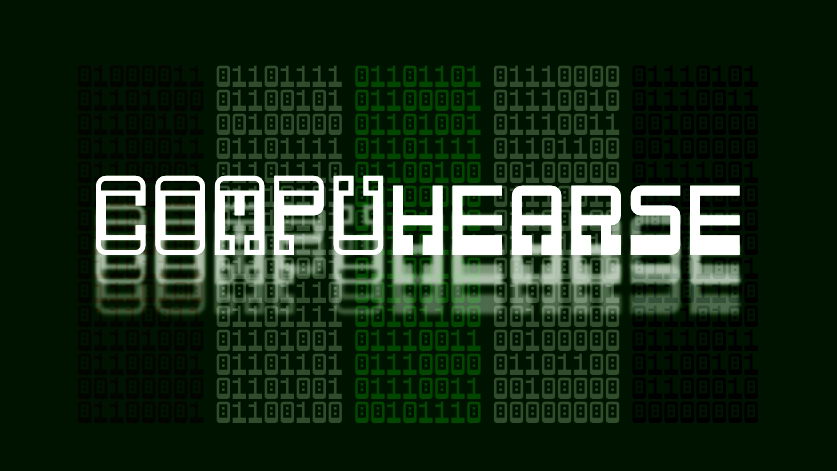
Download Compuhearse font, an old style display typeface that took the line width variation of Art Deco fonts and turned it 90 degrees to create something bottom-heavy.